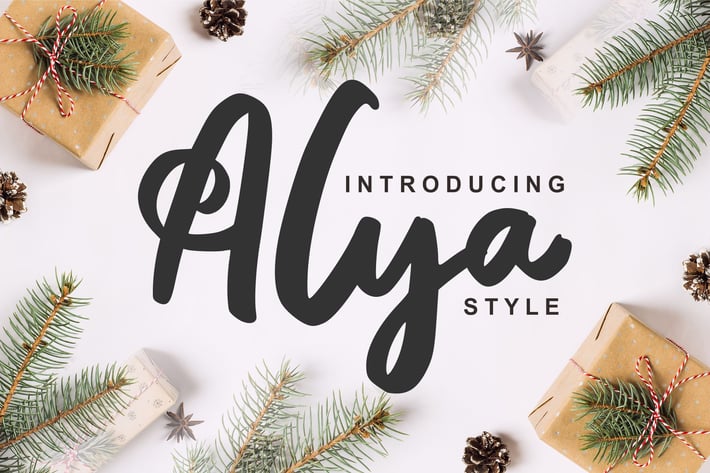
Alya | Brush Style Font
Alya | Brush Style Font with a calligraphy style, So beautiful on invitation like greeting cards, branding materials, business cards, quotes, posters, and more!